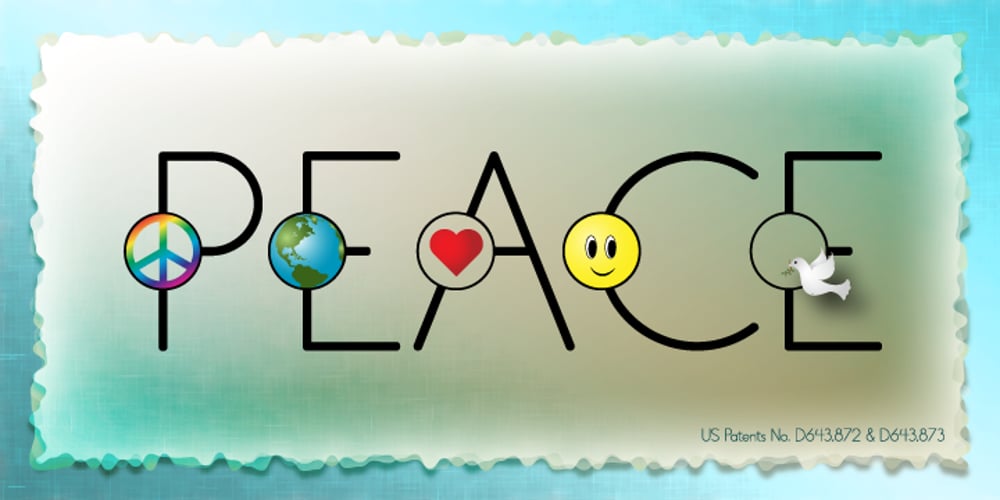
PictiFont
PictiFont font
PictiFont Font Family was designed by Melinda Boyle and published by PictiFont. PictiFont contains 4 styles and family package options. PictiFont is an exciting new hybrid typeface that provides both graphic and written communication at a glance. Simply drop your graphic file – logo, symbol, photograph, drawing, whatever – into the open spaces integrated into the font characters themselves and you have created a unique visual. The sans serif font includes both open and closed typefaces. Alternative characters are reversed, allowing your graphic to “lock” them together. Each Buying Choice includes PictiFont – Plain, which features a complete character set (including lower case) for use with the decorative elements or on its own. PictiFont is easy to use and limitless in its versatility: Inventors: Howard & Melinda Boyle. US Patents No. D643,872 & D643,873